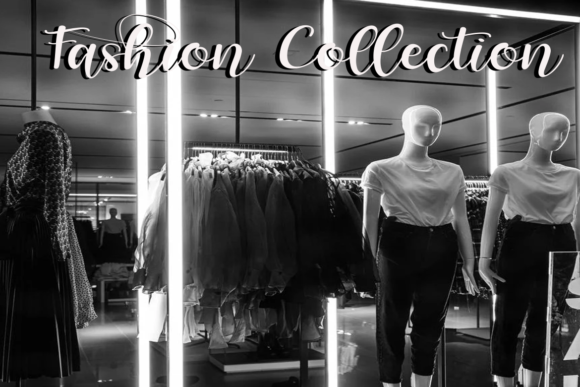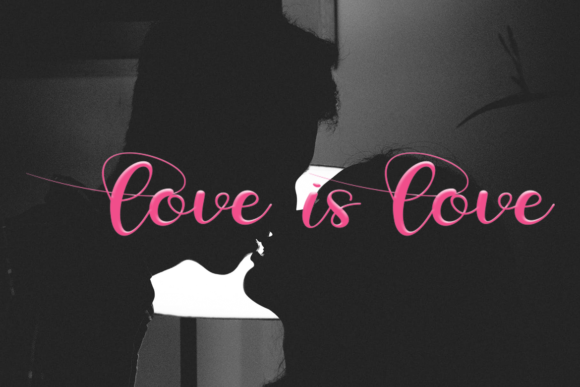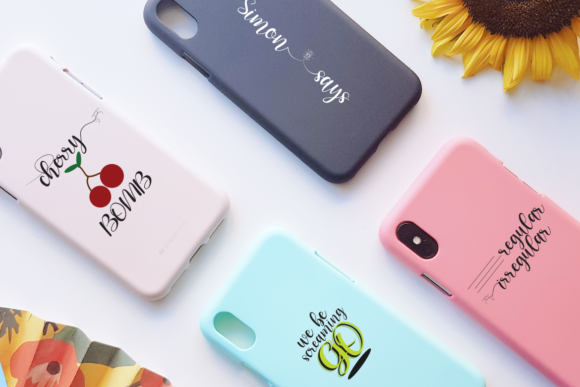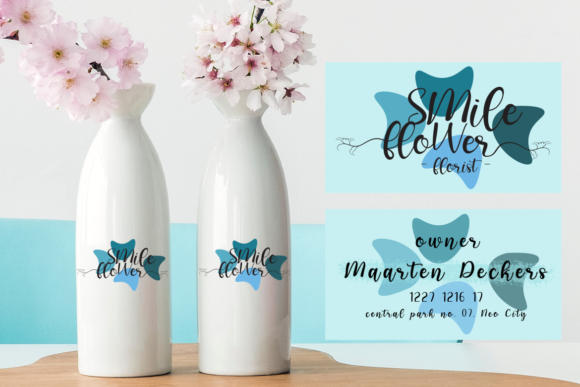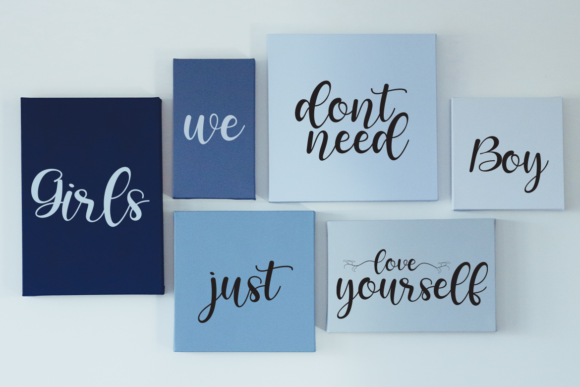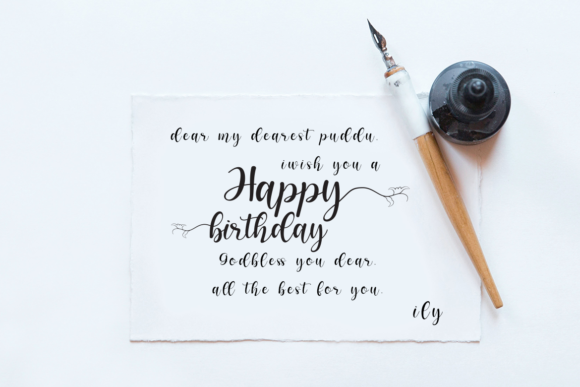
Discover the Romantic Charm of Amala Shazia Font
Are you a designer or crafter looking for a font that exudes romance and beauty? Look no further than the Amala Shazia Font. This stunning script font is designed to make your designs stand out with its unique and elegant style. In this article, we’ll dive into the features and benefits of Amala Shazia Font and explore how you can use it to create spectacular designs.
What Makes Amala Shazia Font So Special?
Amala Shazia Font is a PUA encoded font, which means you can access all of the glyphs and swashes with ease. This feature makes it incredibly versatile and allows you to experiment with different design elements. The font features a varying baseline, smooth lines, gorgeous glyphs, and stunning alternates, giving you a wide range of creative possibilities.
A Romantic and Beautiful Font
Amala Shazia Font feels incredibly romantic and beautiful, making it perfect for designs that require a touch of elegance. Whether you’re creating wedding invitations, greeting cards, or social media graphics, this font is sure to impress. Its smooth lines and flowing curves give it a sophisticated and refined look that’s sure to capture the attention of your audience.
Key Features of Amala Shazia Font
- PUA Encoded: Access all glyphs and swashes with ease
- Varying Baseline: Creates a natural and organic look
- Smooth Lines: Gives the font a refined and sophisticated feel
- Gorgeous Glyphs: Adds a touch of elegance and whimsy to your designs
- Stunning Alternates: Provides endless creative possibilities
How to Use Amala Shazia Font in Your Designs
Amala Shazia Font is incredibly versatile and can be used in a variety of design projects. Here are a few ideas to get you started:
- Wedding Invitations: Create beautiful and elegant wedding invitations that set the tone for the big day
- Greeting Cards: Add a touch of romance and whimsy to your greeting cards
- Social Media Graphics: Use Amala Shazia Font to create stunning social media graphics that capture the attention of your audience
- Logos and Branding: Create a unique and memorable logo or brand identity with Amala Shazia Font
Tips and Tricks for Getting the Most Out of Amala Shazia Font
Here are a few tips and tricks to help you get the most out of Amala Shazia Font:
- Experiment with Different Glyphs and Swashes: Don’t be afraid to try out different glyphs and swashes to add some personality to your designs
- Play with Font Sizes and Colors: Experiment with different font sizes and colors to create visual interest and hierarchy
- Use Amala Shazia Font with Other Fonts: Combine Amala Shazia Font with other fonts to create a unique and interesting look
Amala Shazia Font is a stunning script font that’s perfect for designers and crafters looking to add a touch of romance and beauty to their designs. With its PUA encoded feature, varying baseline, smooth lines, gorgeous glyphs, and stunning alternates, this font is sure to inspire your creativity. Whether you’re creating wedding invitations, greeting cards, or social media graphics, Amala Shazia Font is the perfect choice. So why wait? Fall in love with Amala Shazia Font and start creating spectacular designs today!